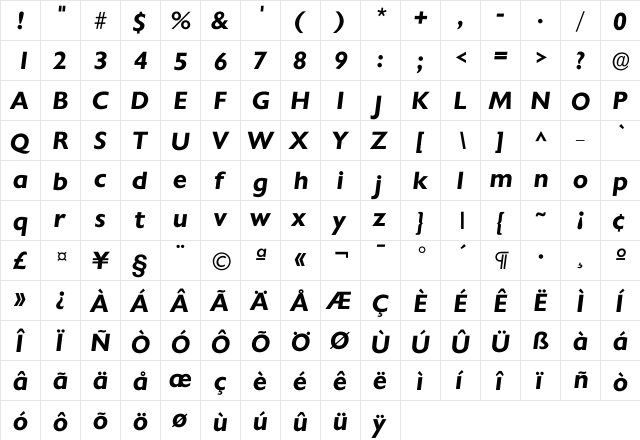
Ichantilly DemiBold
Design Context for Ichantilly Typeface
Ichantilly is a composed and adaptable typeface that performs quietly and consistently across a wide range of design contexts. Its bold stroke weight gives it real presence on the page.